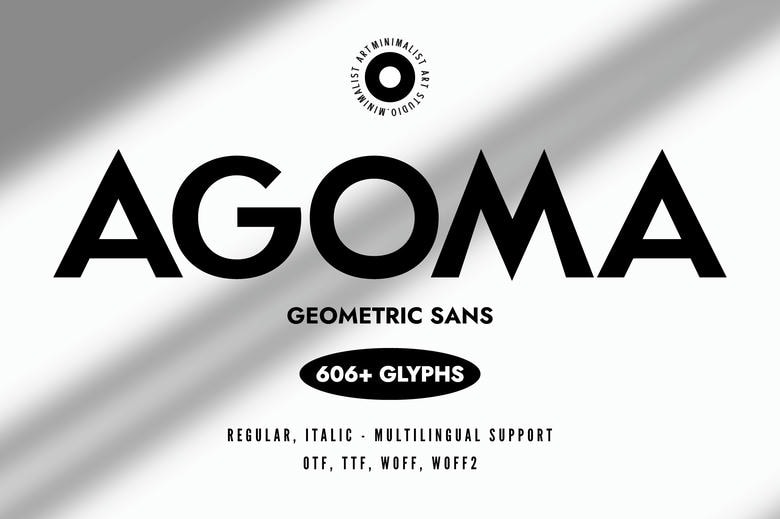
Agoma Font
Agoma is a beautiful minimalist typeface and has a slick and contemporary look. This is the ideal font for every designer who wants a solution to bold and catchy typography and it is a geometrically precise clean sans serif grotesk font.
Agoma is characterized by sharp angles and crisp lines which make it the best in producing clean and professional designs. It has the least and the minimalist style that is ideal in the modern branding, web design, packaging, and advertising. The font has a distinctive character set consisting of lowercase and uppercase letters, numbers, and numerous punctuations, which is why it can be used in any project.
The high legibility of the font has been complemented by the clean and simple design that is further enhanced by the fact that the font can still be read in small fonts. Its bold and geometric form also makes it conspicuous and, thus, a very good font to use as a headline and title.
Agoma Sans Serif Font